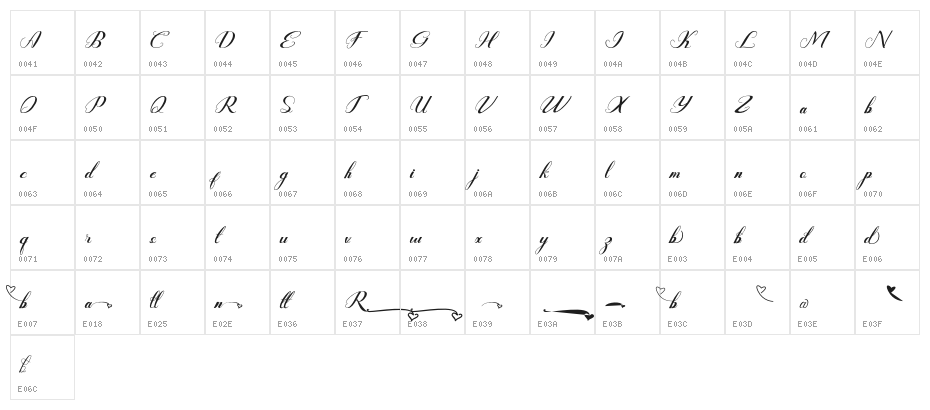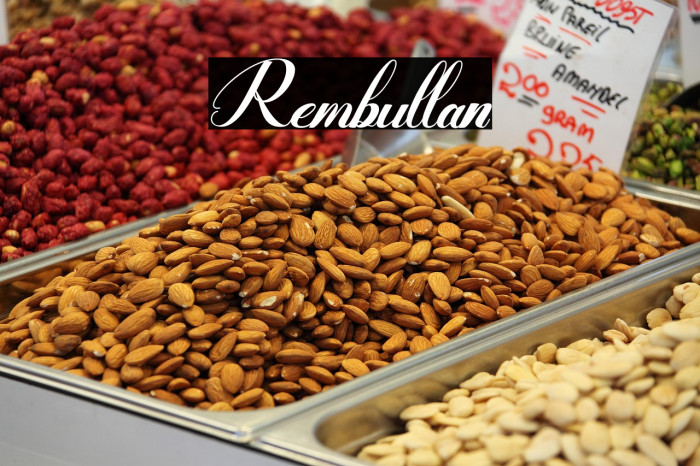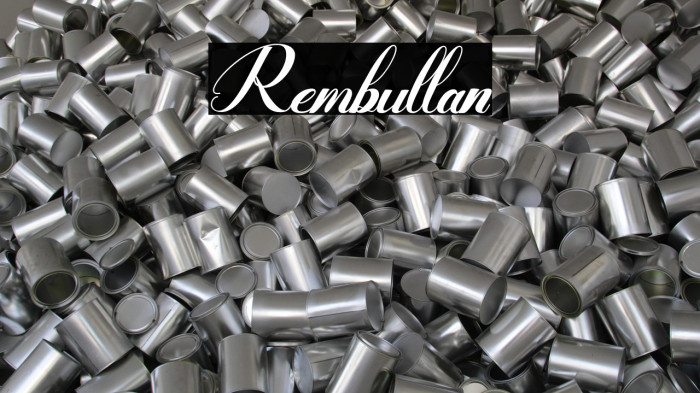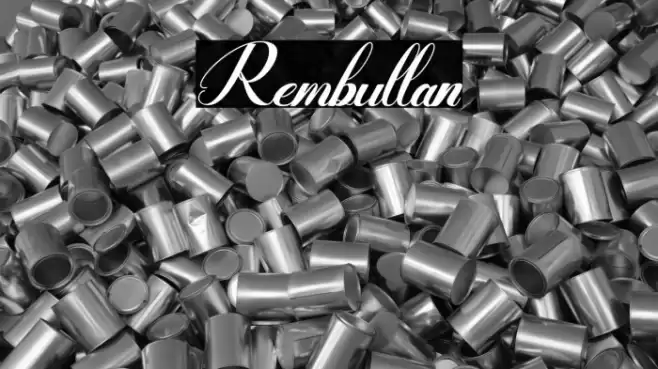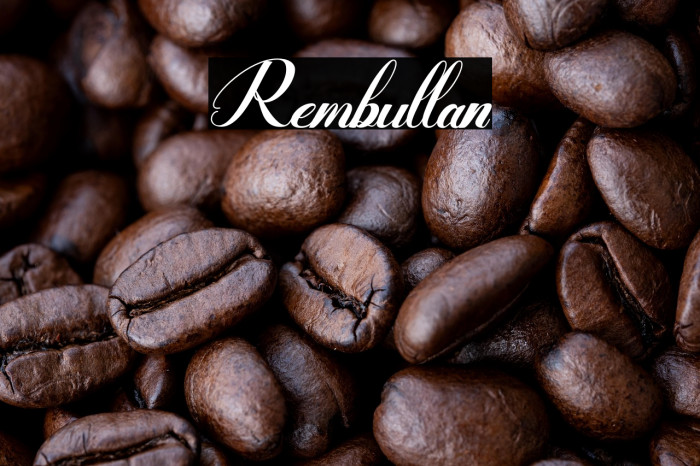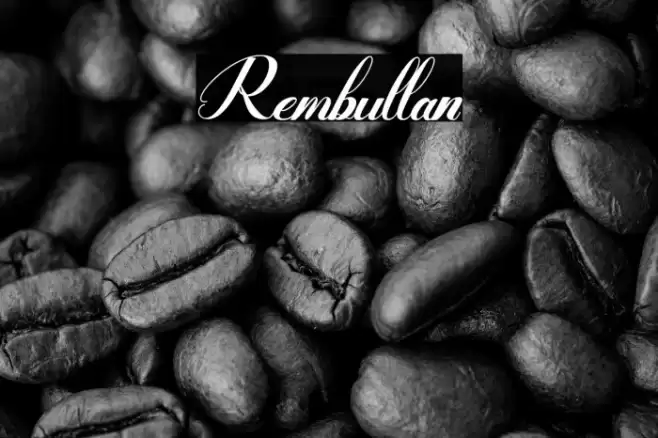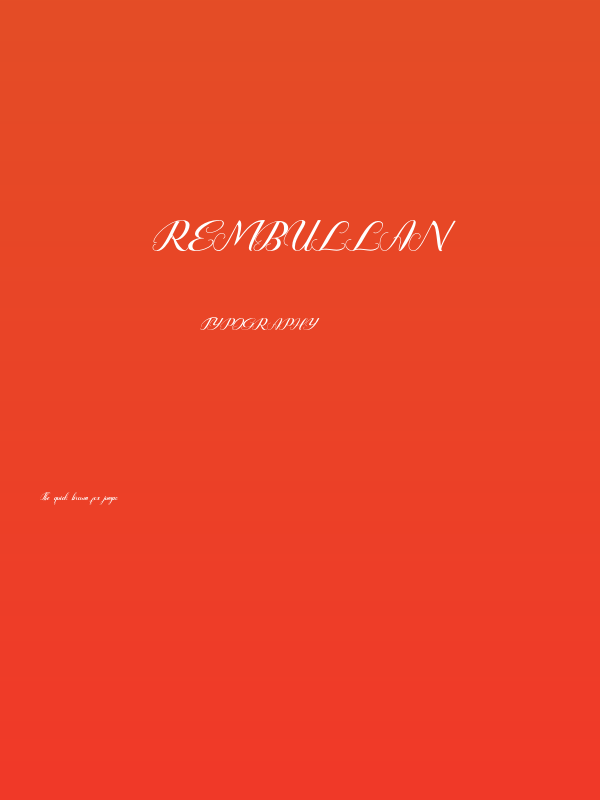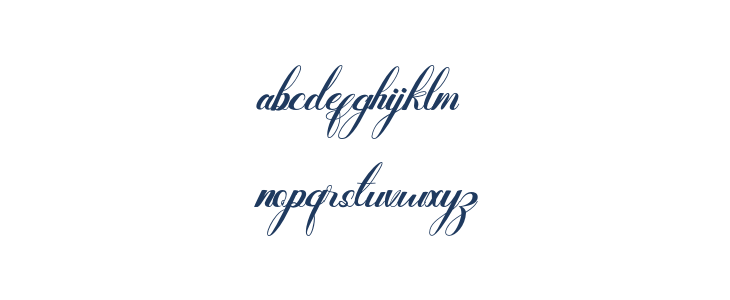
Rembullan Font
Rembullan Description
This elegant script font features flowing, interconnected letters with a classic and sophisticated appearance. The uppercase letters are adorned with intricate swashes and flourishes, giving them a decorative and ornate look. The lowercase letters maintain a consistent style, with smooth curves and a slightly slanted orientation, enhancing the font's graceful and fluid nature. The overall design is reminiscent of traditional calligraphy, making it suitable for formal and artistic applications. The font's high contrast between thick and thin strokes adds to its refined and polished aesthetic.
| Proposed Projects | Ideal for wedding invitations, elegant branding, greeting cards, and artistic projects. |